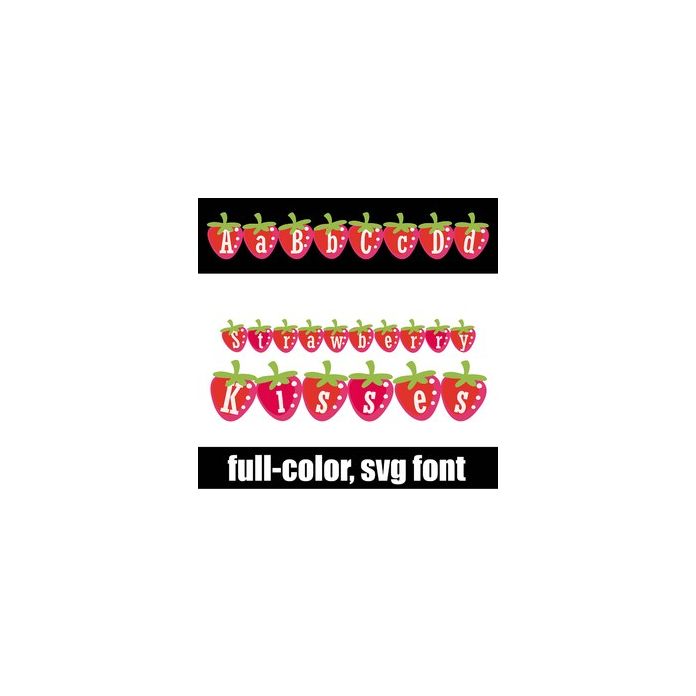
This full-color font features strawberries with letters on them. There is an alt case w/ additional colors you can access through your system or Silhouette's glyph map.